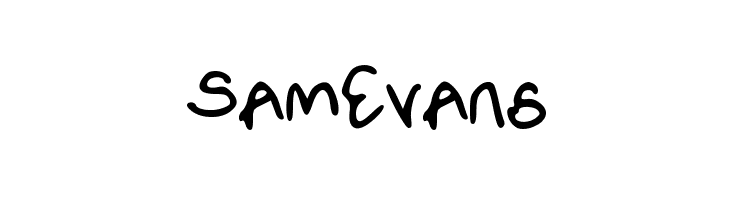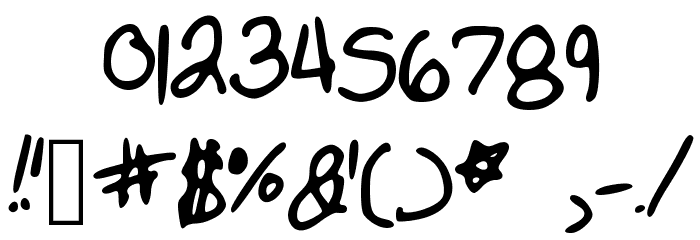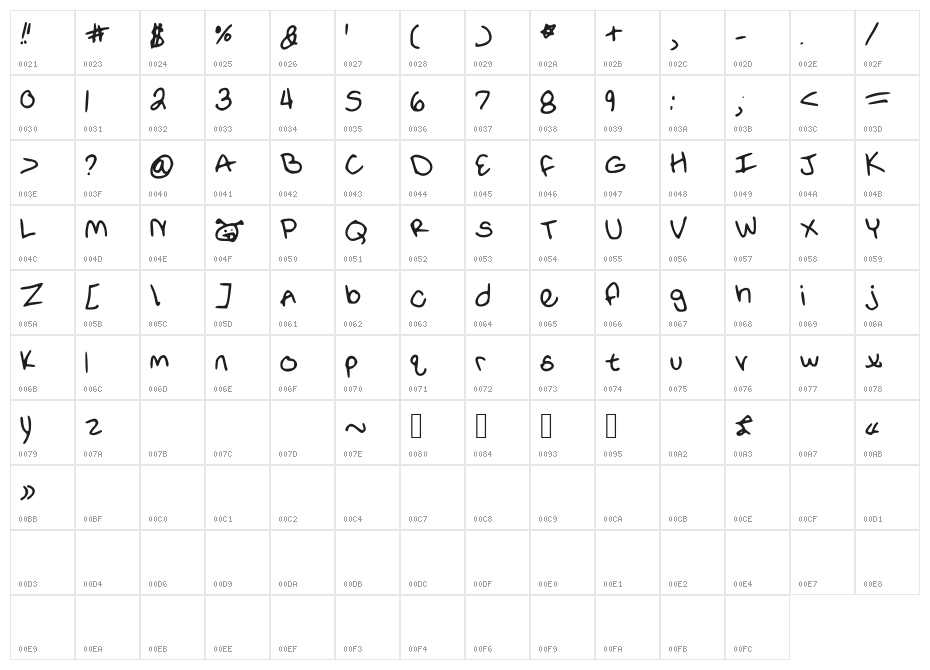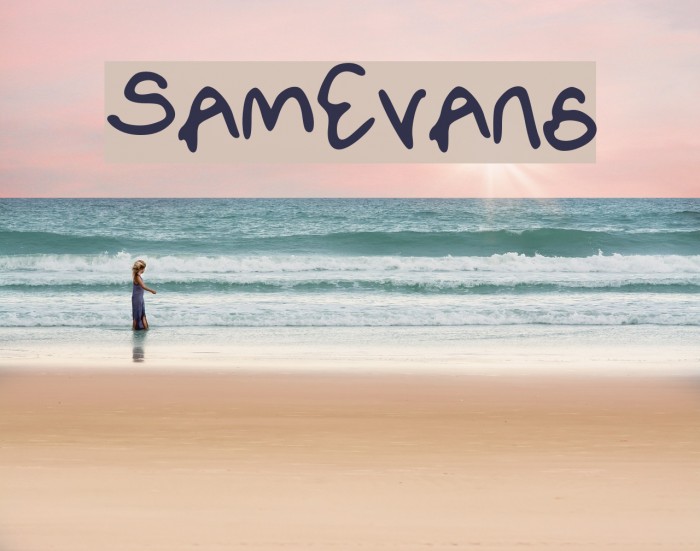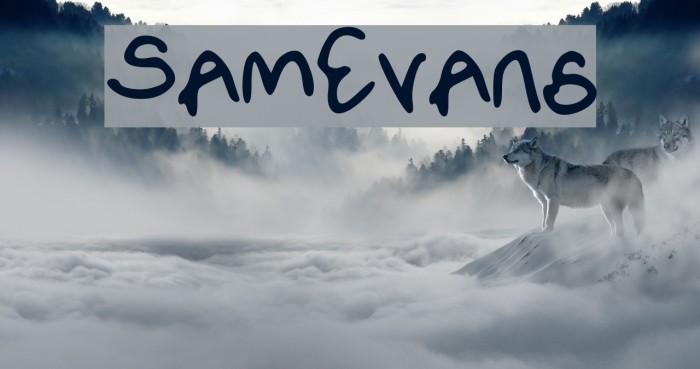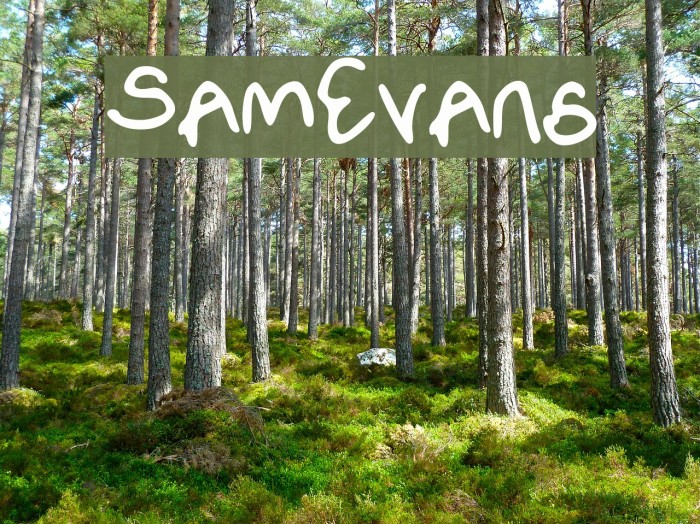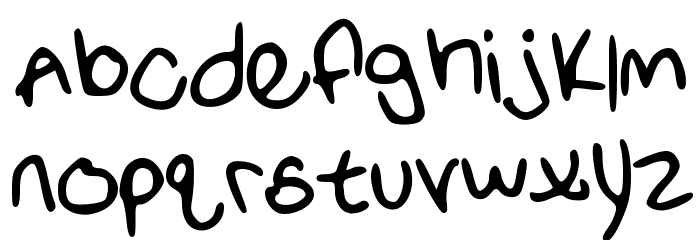
SamEvans Font
SamEvans Description
This playful and whimsical font features a handwritten style with a casual and informal appearance. The letters are slightly irregular, giving it a unique and personal touch. The strokes are bold and rounded, with a consistent thickness throughout, creating a friendly and approachable feel. The uppercase and lowercase letters maintain a cohesive look, while the numbers and special characters complement the overall design. This font is perfect for projects that require a fun and lively aesthetic, such as children's books, greeting cards, or playful branding.